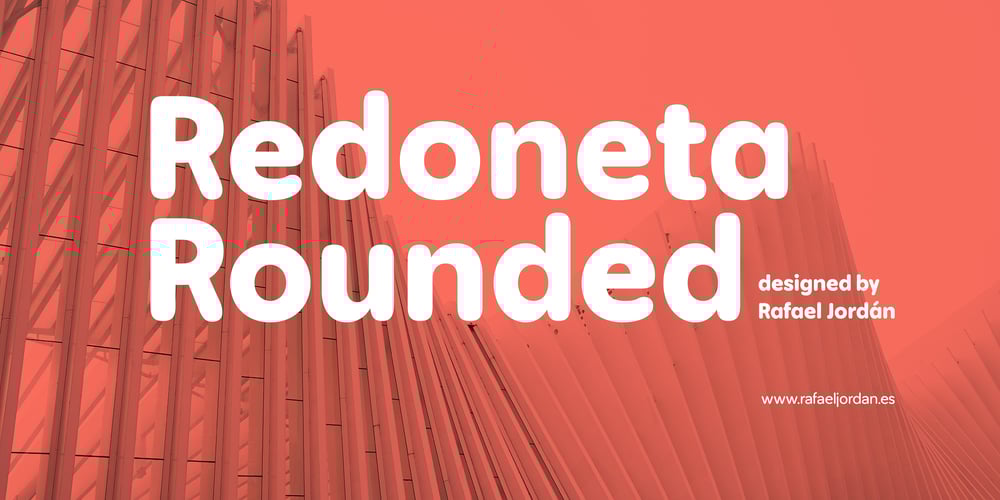
Redoneta Rounded
Redoneta Rounded font
Redoneta Rounded Font Family was designed by Rafael Jordán and published by Rafael Jordan. Redoneta Rounded contains 12 styles and family package options. Redoneta Rounded is an extension of Redoneta font family created by Rafael Jordan, adding kindness to the rational geometry, keeping its workhorse vocation mixing efficiency and the beauty of simplicity.Redoneta Rounded is available in 6 weights and its matching italics. It has an extended collection of OpenType features, including seven stylistic sets to customize how performs in multiple ways.